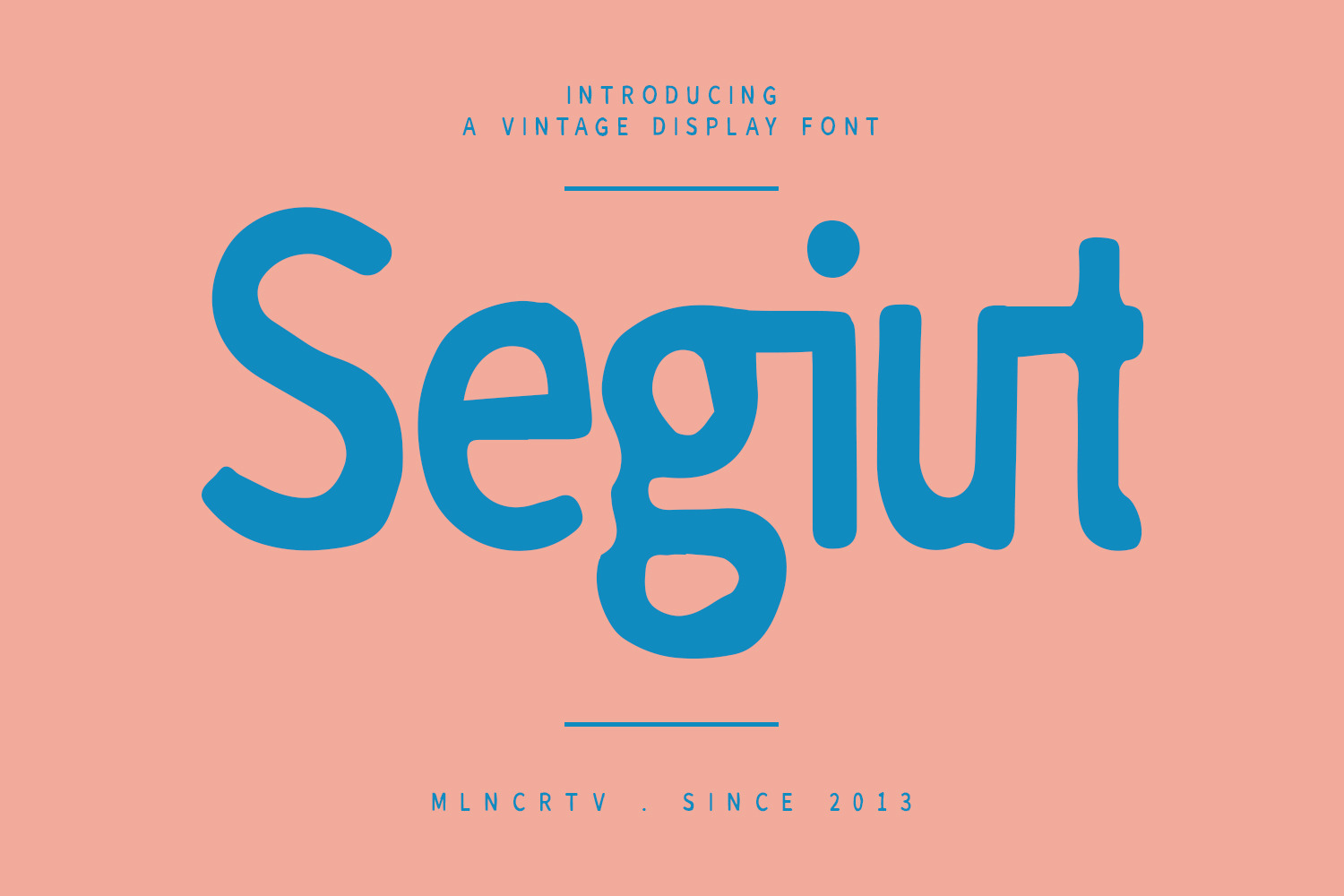
Segiut Vintage Display Font
Segiut vintage display font. Segiut with old stroke, fun character with a bit of ligatures. To give you an extra creative work. Segiut font support multilingual language. This font is good for logo design, Social media, Movie Titles, Books Titles, a short text even a long text letter and good for your secondary text font with sans or serif. Make a stunning work with Segiut font.